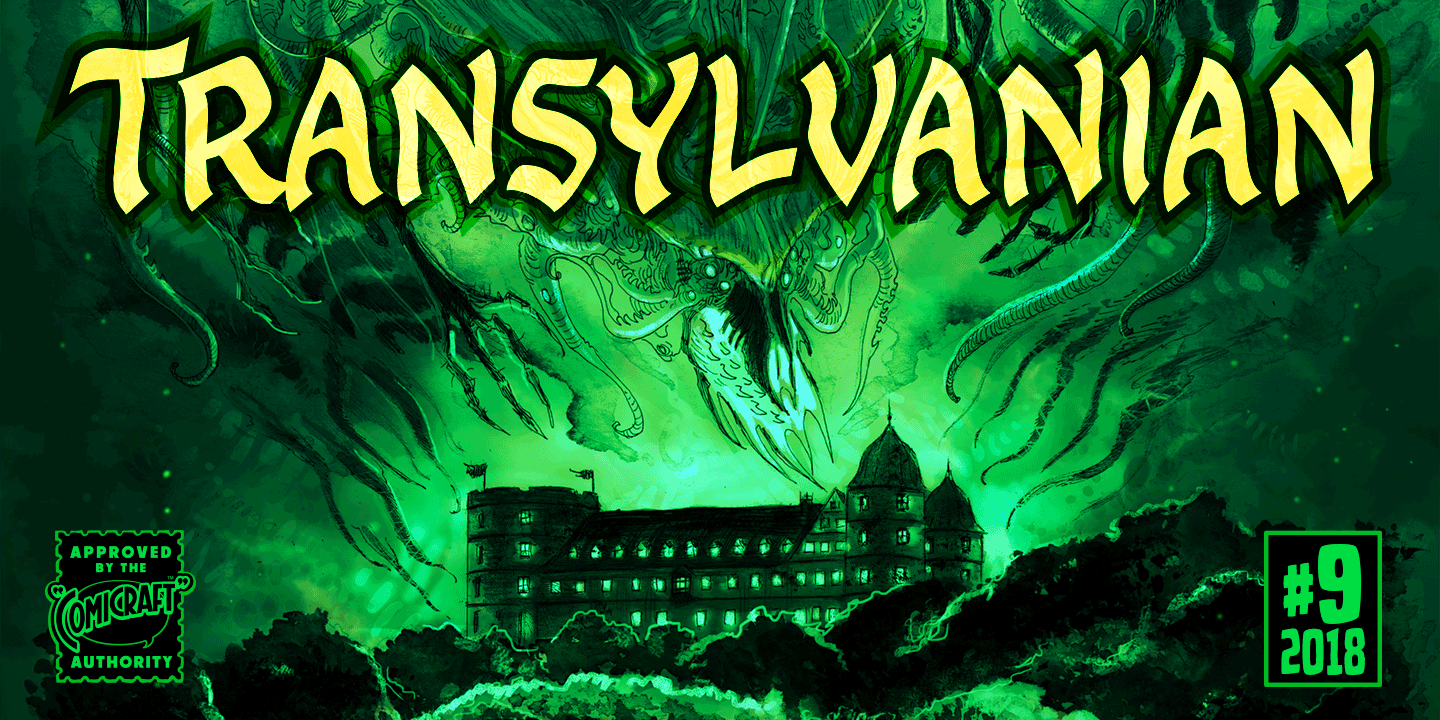
Transylvanian Font excels in gothic design applications including vampire-themed movie posters, dark fantasy gaming graphics, gothic horror book covers, Halloween event materials, supernatural brand identity, mysterious castle tourism, dark entertainment marketing, and spine-chilling advertising campaigns that require typography with vampiric character and gothic mystique.
What makes Transylvanian Font exciting is its haunting ability to evoke the dark romance and mysterious allure of Eastern European gothic heritage through dramatically crafted letterforms that embody the shadowy elegance of ancient castles and vampire legends. This captivating typeface features gothic characteristics with Transylvanian details and mysterious proportions that instantly communicate dark romance, supernatural intrigue, and gothic sophistication. The font's vampiric personality and gothic appeal make it perfect for brands seeking to establish connection with dark fantasy enthusiasts and communicate values of mystery, gothic beauty, and supernatural elegance.
Transylvanian Font family includes various weights and gothic variations designed for comprehensive dark fantasy communication. The family typically includes regular, bold, black, and ornamental weights, complemented by gothic alternates, mysterious ligatures, and extended character sets with supernatural symbols that enhance its vampiric aesthetic and provide maximum gothic impact.
Gothic entertainment designers consistently choose Transylvanian Font Free Download for projects requiring typography that embodies gothic mystery and vampiric sophistication. This haunting typeface delivers exceptional dark appeal across supernatural applications, from digital horror gaming platforms to physical gothic merchandise, ensuring consistent brand messaging with unmistakable gothic authority and vampiric charm. The font's dramatically crafted letterforms maintain excellent readability while delivering the mysterious presence that dark fantasy brands demand. Gothic creative agencies worldwide rely on this supernatural typeface to communicate brand values of mystery, gothic romance, and dark elegance. Embrace the gothic darkness with Transylvanian Font and create memorable visual communications that resonate with audiences who appreciate gothic beauty, vampiric mystique, and the haunting allure of Transylvanian legends that captivate the imagination.